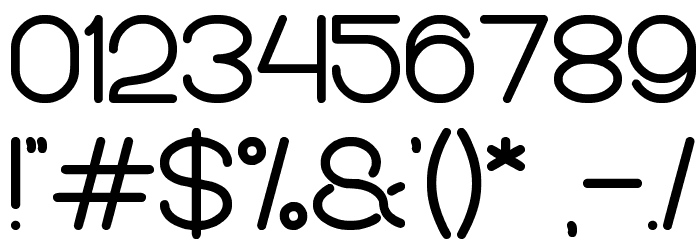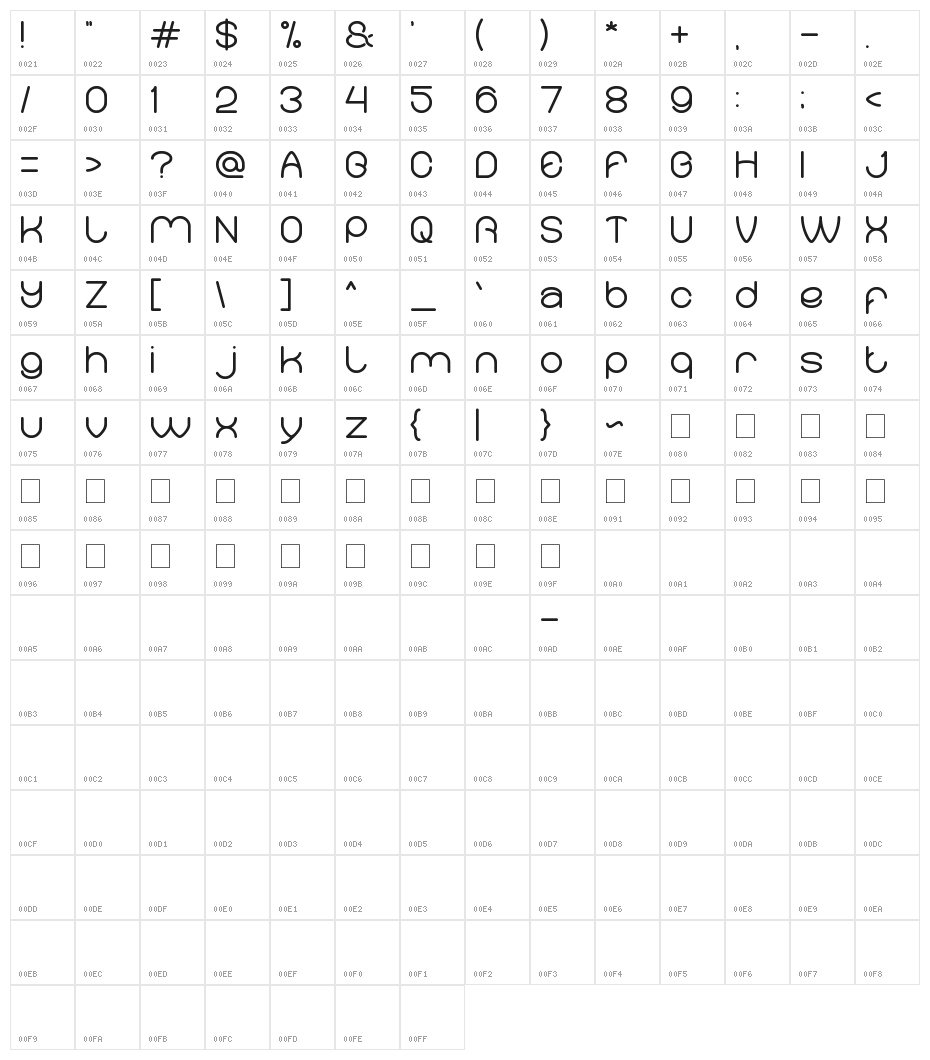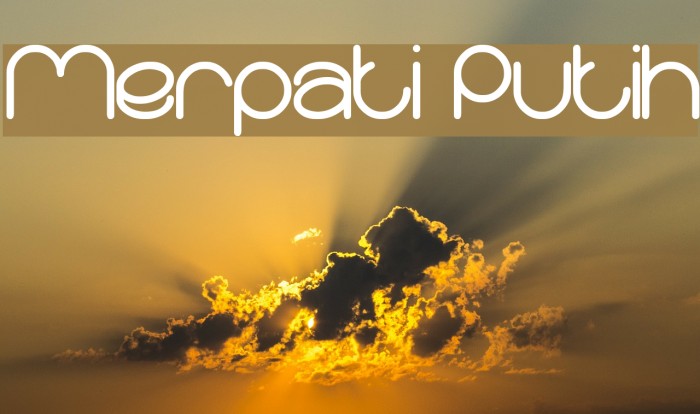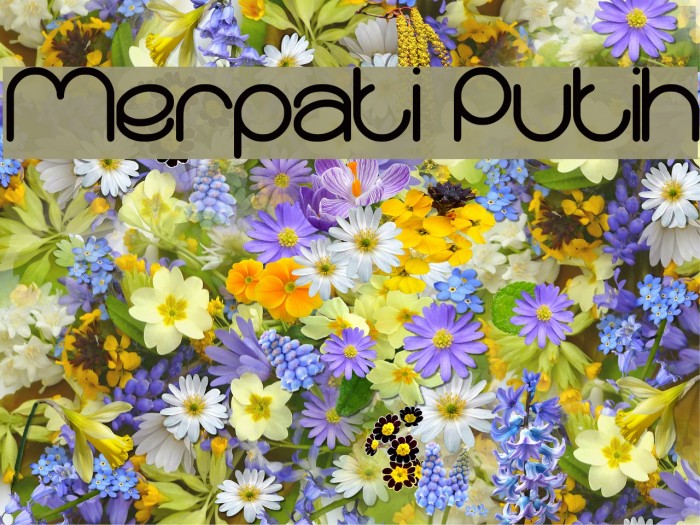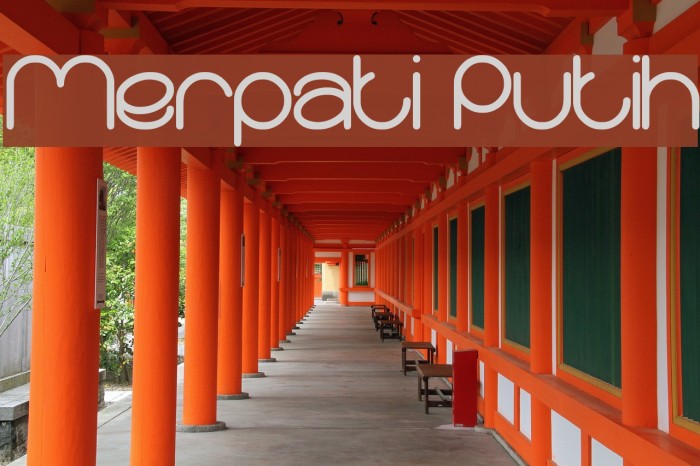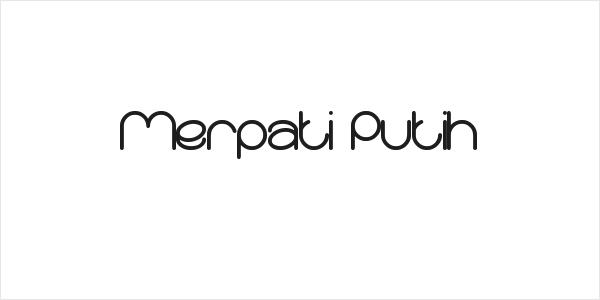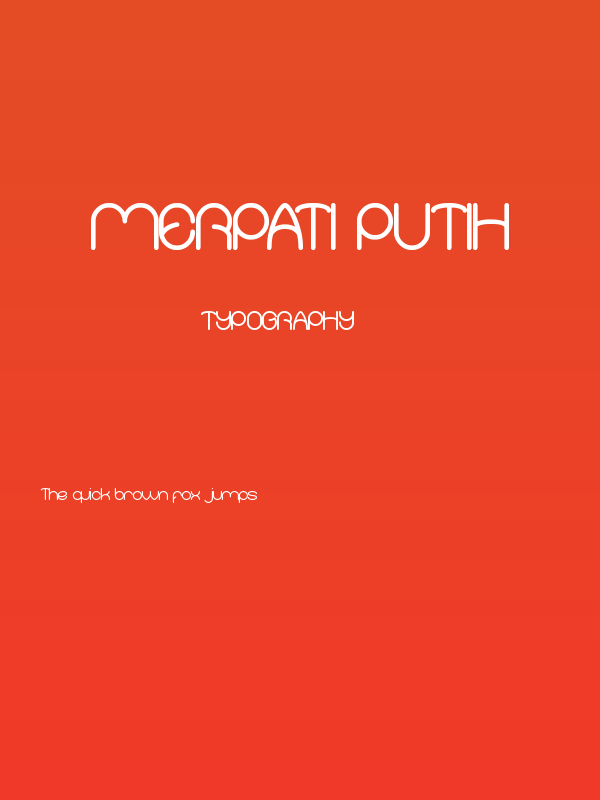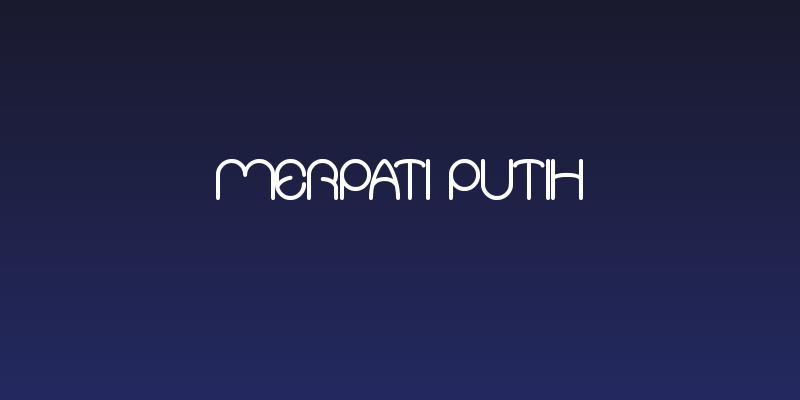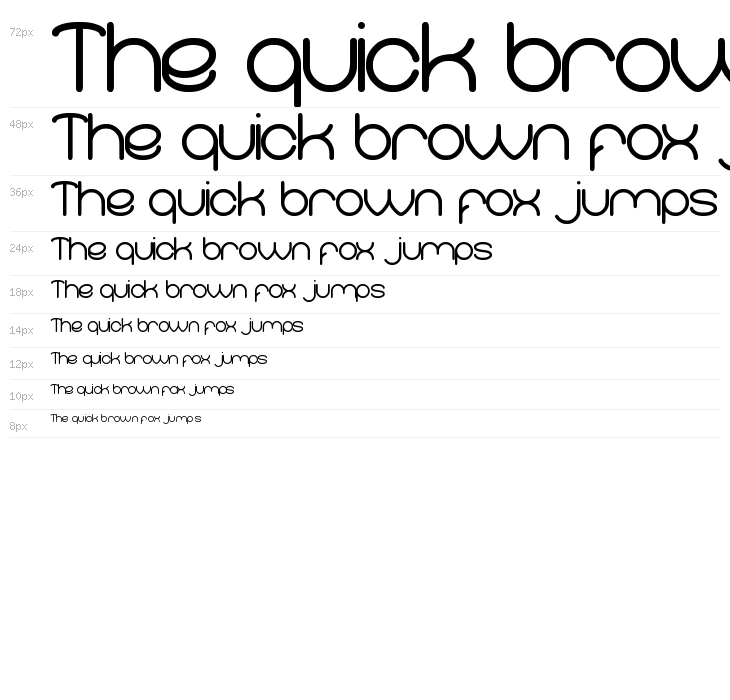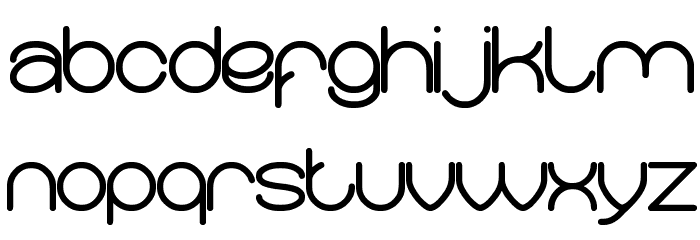
Merpati Putih Font
Merpati Putih Description
This font features a unique and modern design with rounded edges and a consistent line thickness throughout. The characters are evenly spaced, providing a clean and organized appearance. The uppercase and lowercase letters maintain a cohesive style, with a playful yet professional look. The numbers and special characters are designed to match the overall aesthetic, making this font versatile for various applications. Its distinct style makes it suitable for creative projects that require a contemporary and approachable feel.
| Proposed Projects | Ideal for branding, advertising, packaging design, and digital media projects. |